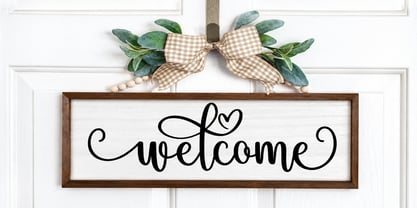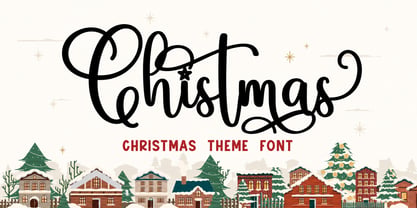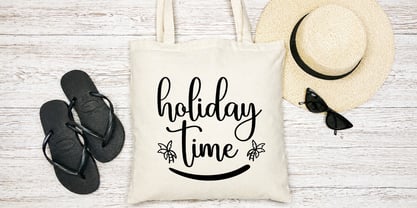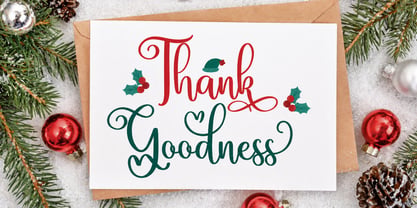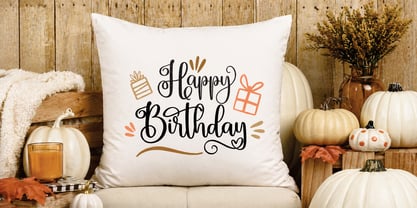
Christmas
Christmas – Festive Holiday Craft Font for Winter & Celebration Designs
Christmas is a festive holiday craft font designed to capture the joyful spirit and magical atmosphere of the Christmas season. With playful letterforms and charming decorative details, this font brings warmth, happiness, and a touch of winter wonder to your creative projects.
Inspired by the beauty of holiday decorations and cozy winter nights, the Christmas font features whimsical characters that feel lively and full of festive charm. Each letter appears as if it’s illuminated by tiny sparkling lights, creating typography that feels cheerful and magical.
The capital letters stand proudly like beautifully decorated Christmas trees, while the lowercase characters resemble playful ornaments gently hanging across festive words. These delightful details give the font a unique personality that makes every design feel more joyful and memorable.
With its flowing curves and snowflake-like shapes, the Christmas font brings a soft and elegant winter aesthetic. The curlicue letterforms resemble delicate snowflakes drifting through a peaceful winter evening, adding a magical holiday atmosphere to your typography.
This festive font is perfect for a wide range of seasonal design projects. Whether you are creating Christmas greeting cards, holiday invitations, festive banners, or winter-themed posters, the Christmas font helps transform ordinary text into joyful holiday typography.
Bring the magic of winter and the sparkle of Christmas lights into your designs with this charming and whimsical holiday font.
Key Features
Festive Christmas Font
Playful and decorative letterforms inspired by holiday celebrations.
Whimsical Winter Style
Curved shapes and elegant details create a magical seasonal feel.
Perfect Holiday Display Font
Ideal for Christmas headlines, greeting cards, and festive graphics.
Warm & Nostalgic Character
Designed to capture the cozy atmosphere of winter holidays.
Christmas is a delightful festive holiday craft font designed to bring warmth, joy, and seasonal magic to your designs. Its playful personality and winter-inspired details make it perfect for designers and crafters who want typography that truly celebrates the holiday spirit.